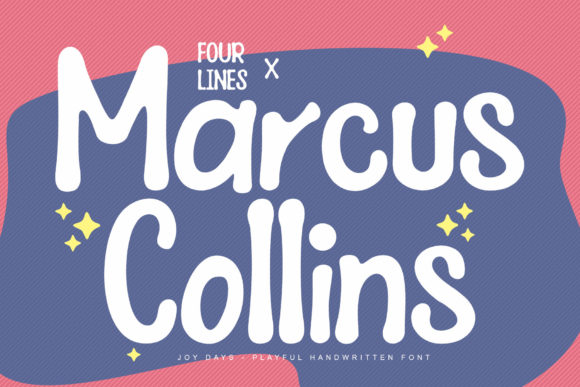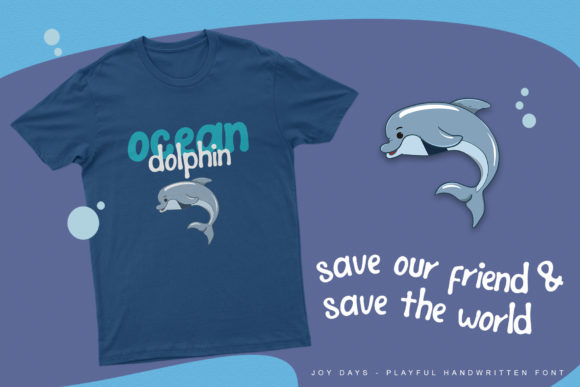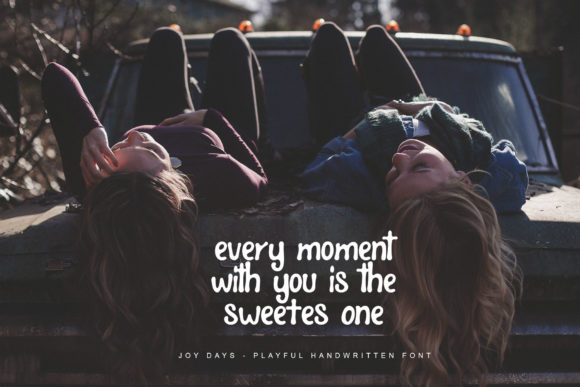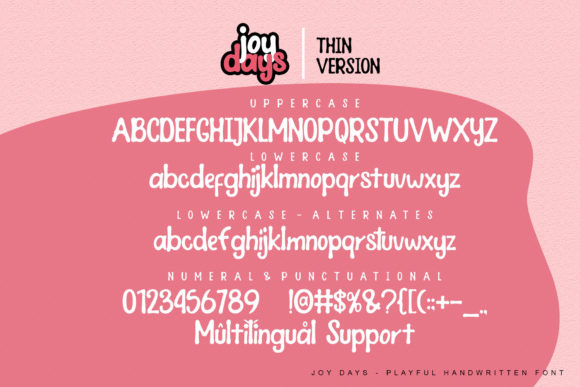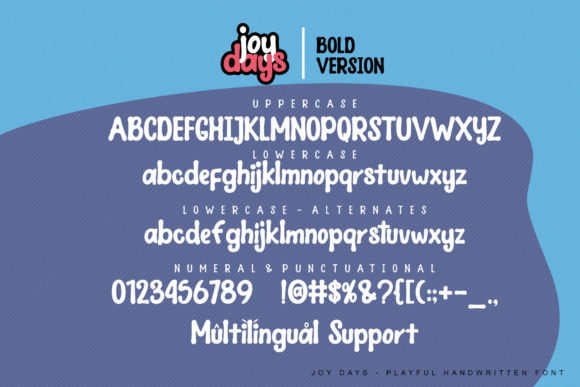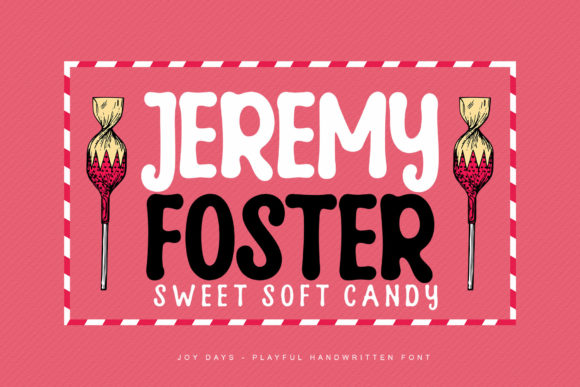
Introduction to Joy Days Font
Have you ever been working on a creative project, pouring your heart and soul into it, only to feel like something is missing? That’s when you stumble upon the perfect design resource – a font that brings your ideas to life. For me, that moment came when I discovered the Joy Days Font. This quirky and playful display font is a game-changer for any designer looking to add a touch of whimsy to their work.
With its retro vibe and high-quality design, the Joy Days Font is a valuable addition to any design toolkit. Whether you’re working on a branding project, creating social media graphics, or designing a children’s book, this font is sure to make your work stand out. And the best part? You can download it for free, making it an accessible design resource for designers of all levels.
So, what are you waiting for? Get ready to add some joy to your designs with the Joy Days Font. With its transparent background and versatility, this font is perfect for any creative project. Let’s dive in and explore the world of possibilities that this amazing font has to offer!
Key Features of Joy Days Font
- High-quality, bold, and playful design suitable for various creative projects, including advertisements, posters, and social media graphics.
- Comes with a transparent background, allowing for easy customization and integration with various design elements.
- Features a large character set, including uppercase and lowercase letters, numbers, and special characters, making it a versatile design solution.
- Has a high resolution of 300 DPI, ensuring crisp and clear text display, even in large sizes.
Honest Review: Joy Days Font
I recently had the chance to work with the Joy Days Font in a creative project, and I must say it’s been a delightful addition. The free download made it accessible, and the high-quality design resource really made a difference.
- ✨ Beautiful, playful style that adds a touch of whimsy to any design.
- ✨ Excellent legibility, even at smaller font sizes.
- ✨ Transparent background makes it easy to overlay on images.
However, I did encounter some limitations when using the Joy Days Font.
- ⚠️ Limited character set, which made it difficult to typeset longer texts.
- ⚠️ Some characters may not be compatible with certain font styles or sizes.
Overall, I’m quite impressed with the Joy Days Font. While it may have some limitations, its unique style and high-quality design make it a valuable resource for designers. If you’re looking for a fun, playful font for your next project, I’d definitely recommend giving it a try.
Tips for Getting the Most Out of Joy Days Font
For best results, use the Joy Days Font on a transparent background to make it stand out in your design project. You can also experiment with different font sizes, colors, and styles to create unique and eye-catching designs.
The Joy Days Font is ideal for use in a variety of creative projects, including social media graphics, blog posts, and marketing materials. Its high-quality design and transparent background make it a versatile and effective design resource for any project.